A logo is the face of any brand, its visual identity. Therefore, it should be designed in the way that leaves a lasting impression. So, whenever they see your logo, they know what it stands for. Designing an impactful logo that is meaningful as well as visually appealing is important for any brand. So, choosing the right Urdu font plays a key role in the whole process. Urdu, with its rich calligraphic tradition, offers hundreds and thousands of design fonts that can be used for logos and other artworks. An ideal Urdu font not only captures the essence of the brand but also ensures readability and aesthetic appeal. Selecting the right font involves a few things to give it a real meaning. These include understanding the brand's identity, knowing your target audience and their interest, and, of course, the visual impact of it matters too. This article will guide you through the key points you must consider when choosing or designing a face for your brand. We have defined different steps you can use to choose the perfect Urdu font for designing logos. Moreover, read more about how Urdu Fonts captivate audiences Advertising and Marketing.
We have previously discussed about Urdu/Arabic scripting techniques and their effect on modern typography. However, when it comes to styles, typefaces or fonts can be mainly categorized into five major groups, each with its own unique characteristics: serif, sans-serif, slab, script, and decorative. Recognizing the personality of each typeface group can guide you in selecting the most appropriate font for your Urdu logo. Here we have provided a table summarizing the different types of Urdu fonts along with their characteristics, appearance descriptions, and some example Urdu fonts:
| No. | Font-Type | Description | Characteristics | Example Urdu Fonts |
|---|---|---|---|---|
| 1 | Serif | Small lines or "serifs" at the ends of letter strokes. | Classy, literary, professional. | Ae Nada, Al Gemah Sana, Ara Etab Al Monie’ee |
| 2 | Sans-Serif | Clean, minimalist design with no decorative lines. | Modern, reliable, versatile, and readable. | The SANS, Noto Sans, Platino Sans Arabic, |
| 3 | Slab | Thick, block-like serifs, bold and bulky appearance. | Bold, eye-catching, attention-grabbing. | Nafees Web Naskh, Al Qalam Irtaza Hassan |
| 4 | Script | Resembles cursive handwriting, formal or casual. | Elegant, fluid, playful, calligraphic. | Scheherazade, Diwani Letter |
| 5 | Decorative | Highly varied, creative, often customized for uniqueness. | Creative, playful, adds individuality. | Faiz Lahori Nastaleeq, AA Sameer Rafiya unicode |
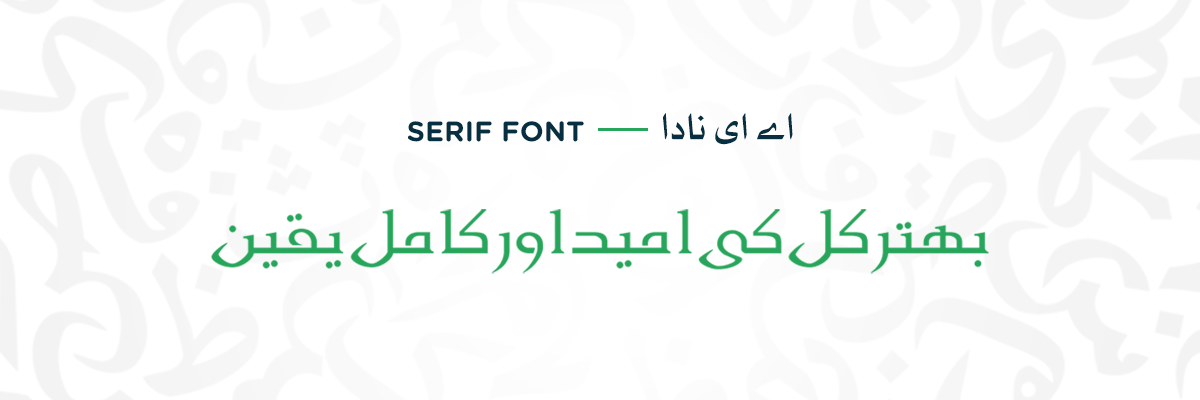
Serif fonts can be recognized by the small lines or "serifs" at the ends of letter strokes. This group is the oldest, dating back to Roman era, and it offers authority and tradition. So, this type of Urdu fonts can be used for presenting a modern brand identity with a little stylistic effect. Such fonts can be used by clothing brands or businesses.
Sans-serif fonts emerged in the 19th century and are defined by their clean, minimalist design, lacking the decorative lines of serifs. These fonts offer no design aspect. Such Urdu fonts can be used where readability matters more than aesthetics. Sans-serif fonts are ideal for startups and modern brands that want to project a modern and approachable image.
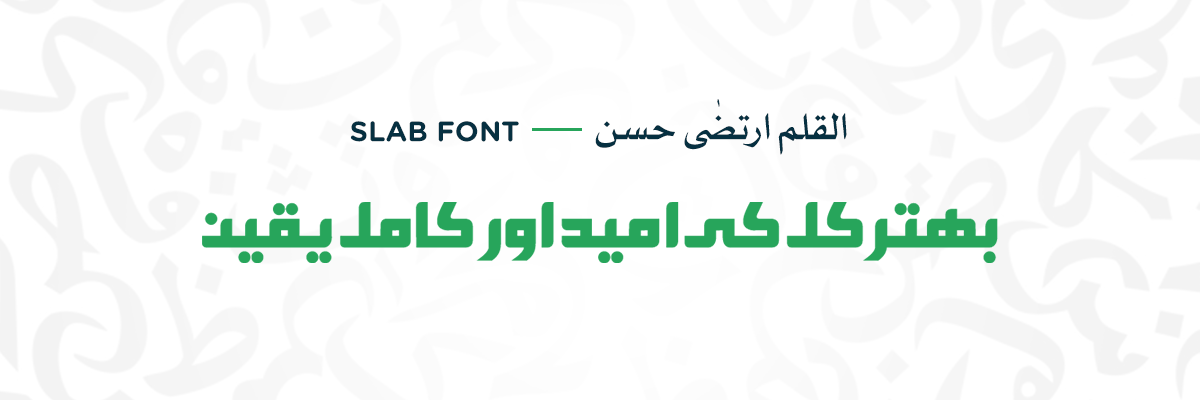
Slan Sarif Fonts are a subset of serif fonts, distinguished by their thick, block-like serifs. Unlike traditional serif fonts with thin, hairline extensions, slab serifs have thick and blunt appearances, often resembling slabs attached to the letterforms. The grabs immediate attention, therefore, they are perfect for creating impactful logos for brands that want to make a strong visual statement.
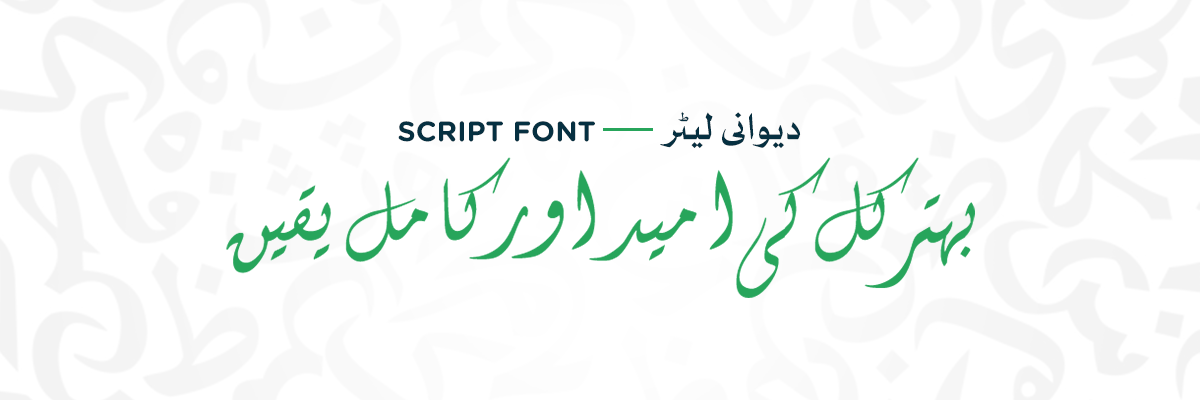
Script fonts resemble cursive handwriting and can be either formal or casual. They bring a unique, artistic, or calligraphic flair to design. Many bakery, clothing, and food chains uses such script fonts in their logos to add a touch of sophistication. These fonts connect with the audience on a personal level with their calligraphic influence. To get more fonts like this you can explore list of 8 Party Urdu Fonts and make engaging designs.
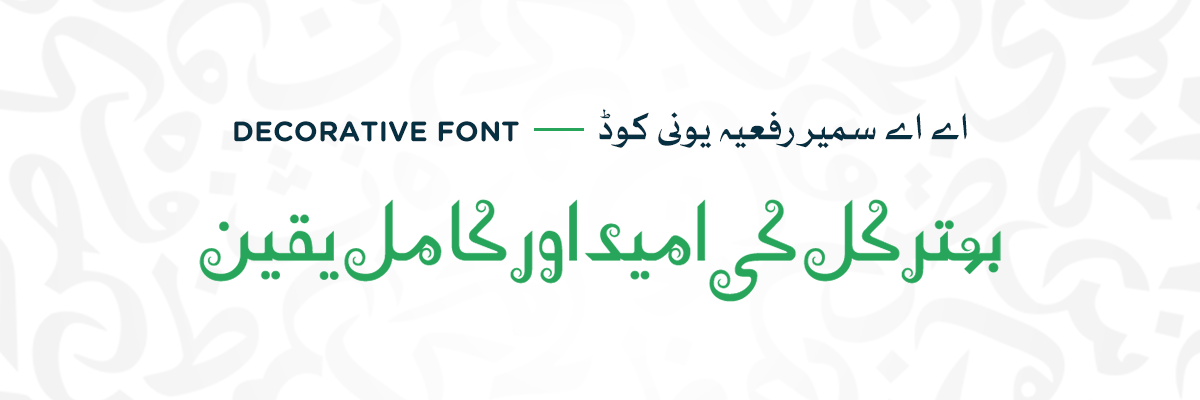
Decorative Fonts are the most diverse and creative typeface group, often customized for specific brand identities. These decorative fonts are ideal for brands that prioritize uniqueness and creativity. Such fonts gives your brand to own its individuality so that it can be recognized in a split second in the crowd of familiar competitive.
A logo of a company serves as a visual representative of a brand, building trust and recognition. Therefore, it should be designed in a way to tell the story of a brand. It should be able to convey its values and add a personality to it that can help connect with a wider audience. Also, it should be adaptable across different platforms to maintain brand consistency. These are some considerations to take care of while giving your brand a face. Here in this section, we are going to explain these factors in detail, so your brand's visual representative will shine on every forum.
The font should reflect the brand's personality and values. For example, a modern brand might opt for sleek, contemporary fonts, while a traditional brand might prefer classic, Calligraphic styles. If your brand is tech- or computing-related, then using a scripting font would be an absurd choice. What would suit your idea will be a geometric or well-aligned font with a sharp and minimal appearance like many Kufic-inspired fonts.
Ensure that the font is legible in various sizes, especially in smaller formats. The clarity of the text must be of top priority for the logo to be effective on every platform. English language have greater legibility than Urdu, therefore, keep in mind that this design will be displayed on different forums in various ways, from packaging to marketing or business cards, etc, so it must maintain its structure.